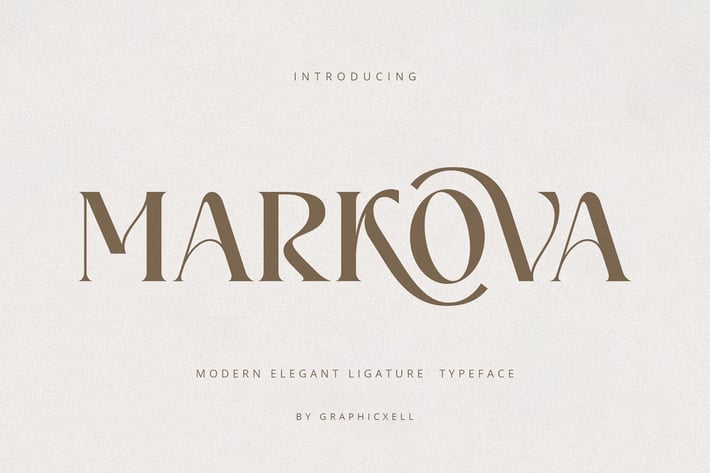
Markova Serif Font
Markova Ligature is a stylish serif font family made to add grace and charm to your designs. Its smooth curves and neat ligatures give text a natural flow. Because of this, it works great for branding, magazines, invitations, and luxury packaging. This font brings a classic look with a modern feel.
Moreover, Markova Ligature has clear letter shapes and good spacing. Therefore, it is easy to read in both large and small sizes. Also, it fits well for titles and body text. Besides that, the font supports many languages, making it useful for projects worldwide. Its timeless serif style suits both print and screen designs.
In addition, the font comes with many OpenType features. These include ligatures, alternate letters, and special styles. As a result, you get more ways to customize your text. Also, Markova Ligature works well on websites and printed materials. It keeps your design sharp and attractive no matter where it appears.
Key features include:
- Elegant serif font with smooth ligatures
- Clear and balanced letterforms for easy reading
- Suitable for headlines and body text
- Supports multiple languages
- OpenType features like alternates and ligatures
- Optimized for print and web use
Why choose Markova Ligature?
- Smooth ligatures for flowing text
- Clear and easy-to-read letters
- Perfect for branding, editorial, and packaging
- Works well in both print and digital media
- Fast-loading font for websites
- Flexible with OpenType features
- Multilingual support for global projects
To sum up, Markova Ligature offers beauty and ease. It helps your designs look professional and elegant at the same time.